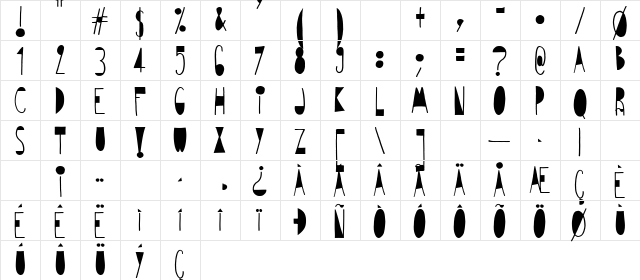
Avantgardiste 1934 Regular
| Designer | Imagex |
Avantgardiste 1934 is a composed and adaptable typeface that performs quietly and consistently across a wide range of design contexts.